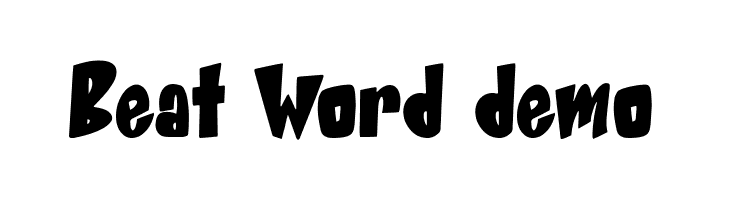
A bold, italic, and condensed font with a playful and dynamic style.
A bold, italic script font with a playful and dynamic style.
A bold, hand-drawn font with a playful, leftward slant.
A bold, playful font with a cartoonish, outlined style.
( Fonts by Aryel Filipe )
A bold, dynamic font with sharp, angular edges and a playful, cartoonish style.
( Fonts by www.blambot.com )
A bold, playful font with a dynamic, cartoonish style.
( Fonts by www.blambot.com )
A bold, italicized font with a dynamic and energetic style.